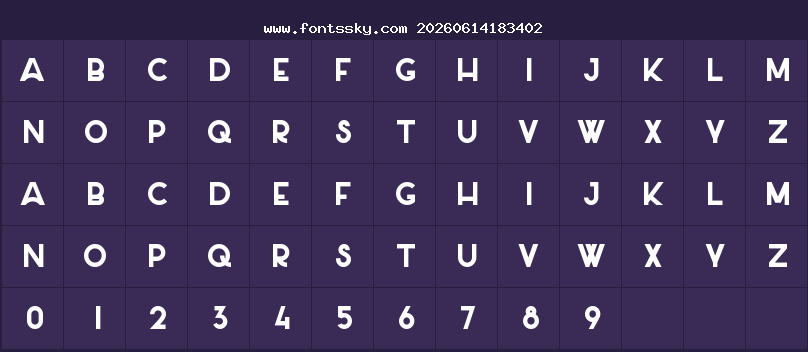
Salt Preview
• Font Name: Salt
• Font Style: Gras
• Font ID: Salt Bold:Version 1.00
• Full Font Name: Salt Bold
• Version: Version 1.00 October 30, 2018, initial release
• PostScript Name: Salt-Bold
About Salt.ttf
Salt.ttf is a modern, elegant sans-serif font designed for ultimate readability and visual harmony. Perfect for branding, headlines, web design, and print materials.